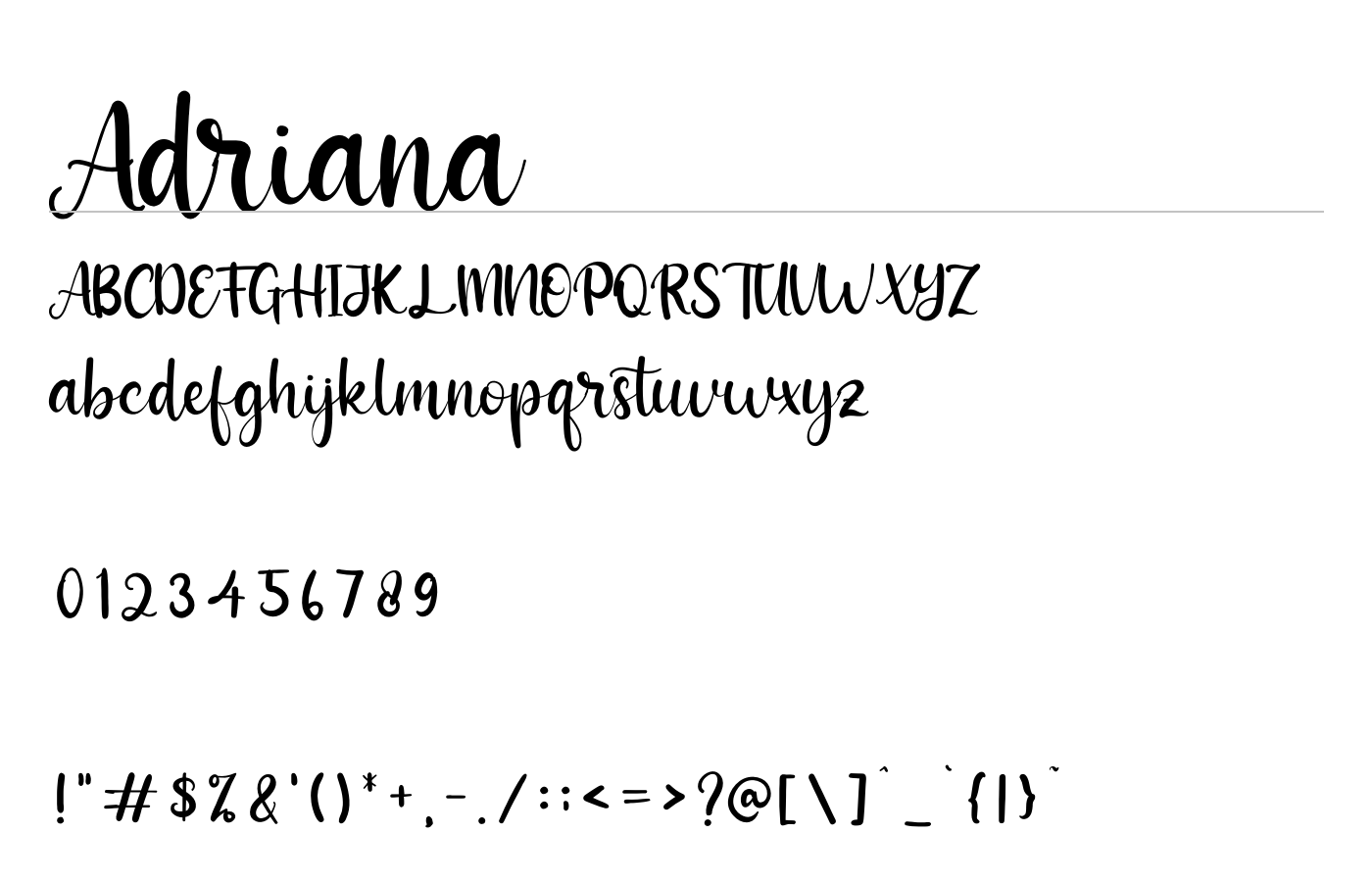
Adriana is an elegant, script-style font with a handwritten feel, featuring medium weight strokes and smooth, rounded curves. Its tall x-height and playful letterforms lend a friendly, approachable personality, making it ideal for branding, invitations, and creative design projects seeking a personal, stylish touch. The font’s clear legibility and charming flow work well for both headlines and short text where a warm, inviting look is desired.
Adriana Font
About Adriana Font
| Font family | Adriana Font |